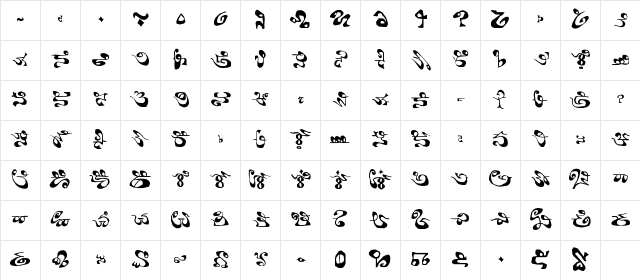
Tsolyani Modern Regular
Design Context for Tsolyani Modern Typeface
Tsolyani Modern takes a measured approach to typography — its balanced proportions and neutral character make it a reliable workhorse for both digital and print work.